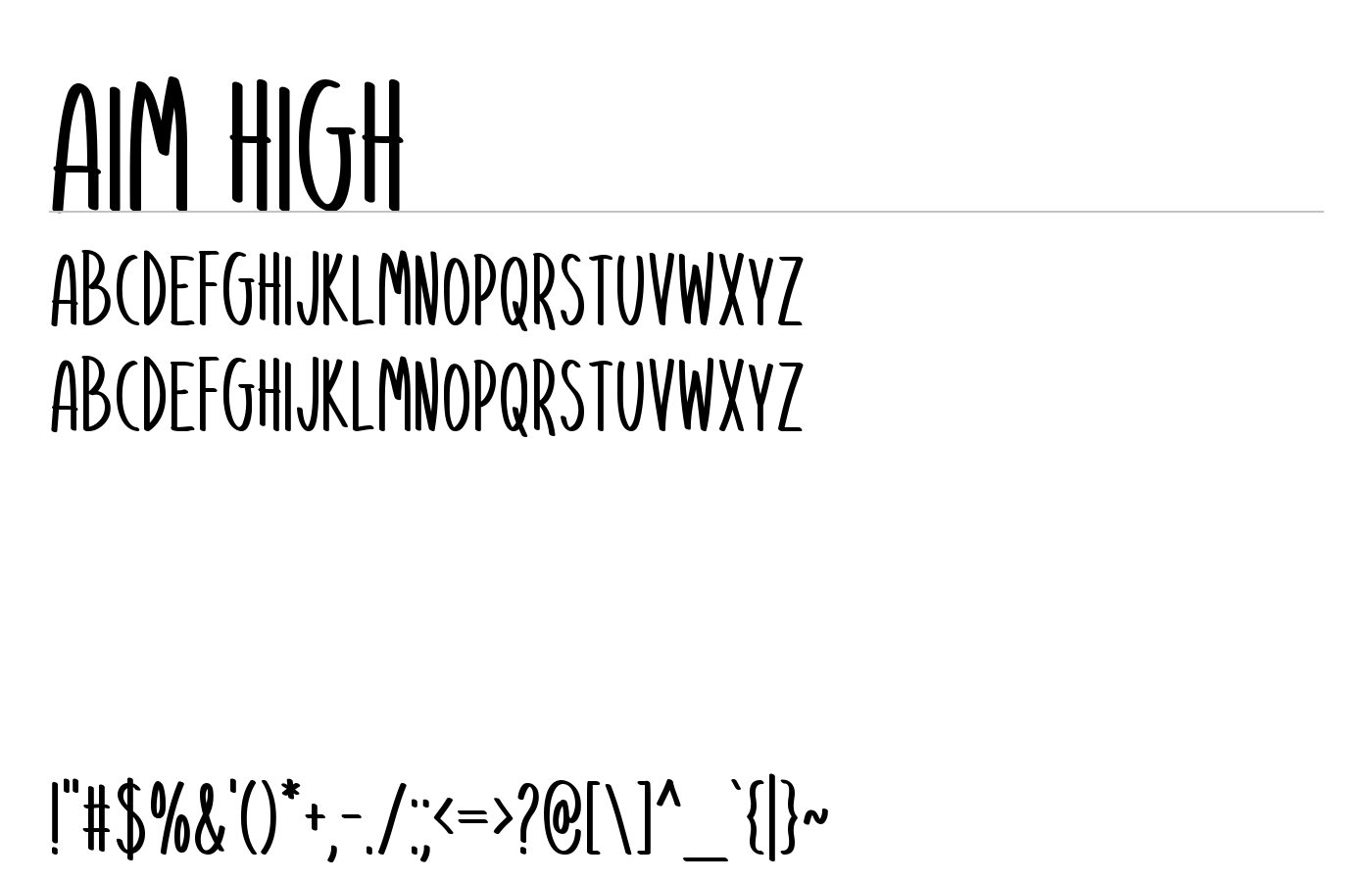
Aim High is a tall, narrow sans serif font with a whimsical, hand-drawn feel characterized by irregular line weights and slightly quirky letter shapes. Its elongated forms and casual style make it perfect for creative projects looking to convey friendliness and originality, especially in headlines, posters, or playful branding where a lighthearted, approachable vibe is desired.
Aim High Font